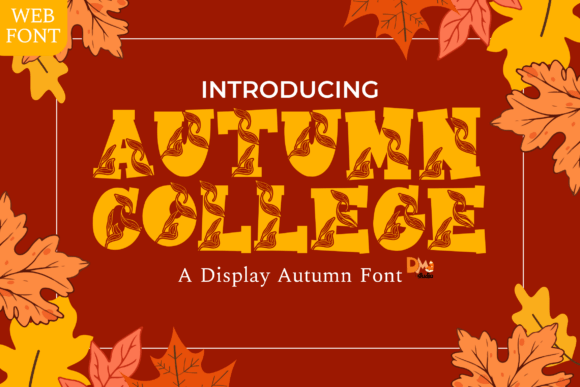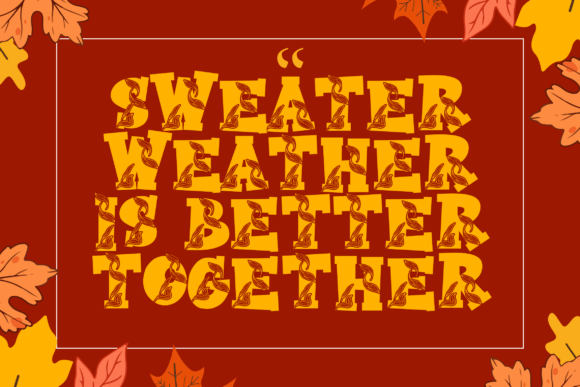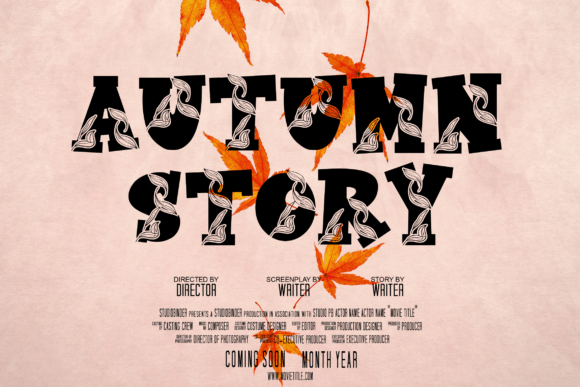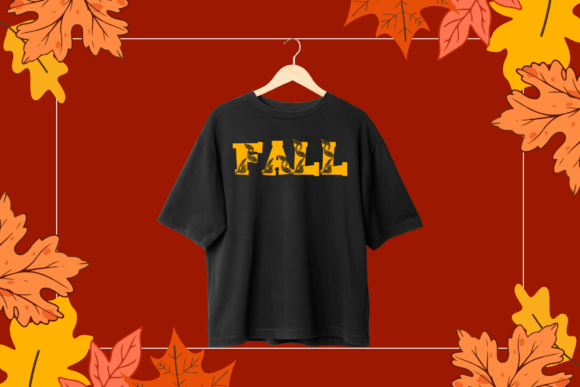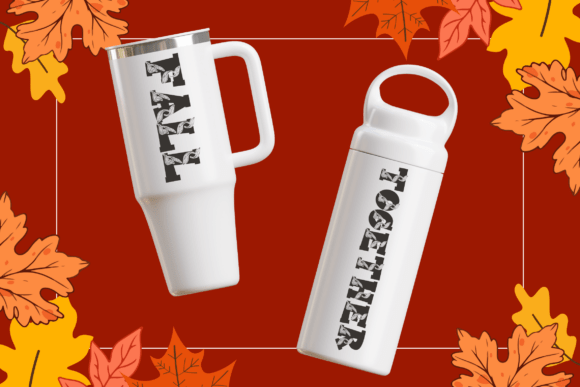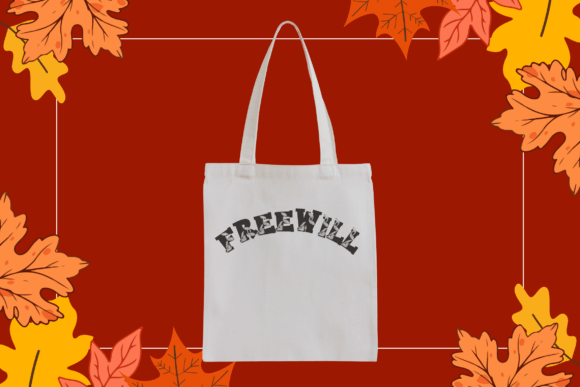
Introduction to Autumn College Font
Inject a sense of nostalgia and tradition into your designs with the Autumn College Font: a robust, vintage-styled collegiate typeface that channels the spirit of iconic university and sports lettering.
| 👤 Author | Sharon ( DmStudio ) |
Ideal for team emblems, varsity apparel, school banners or any retro-inspired creations, this font bestows a universally recognized academic and athletic ambiance upon your projects Be it for a collegiate gathering, a sports finale, or trendy merchandise designing, the Autumn College Font consistently delivers a refined, yet powerful charm.
Key Features of Autumn College Font
Why Choose Autumn College Font?